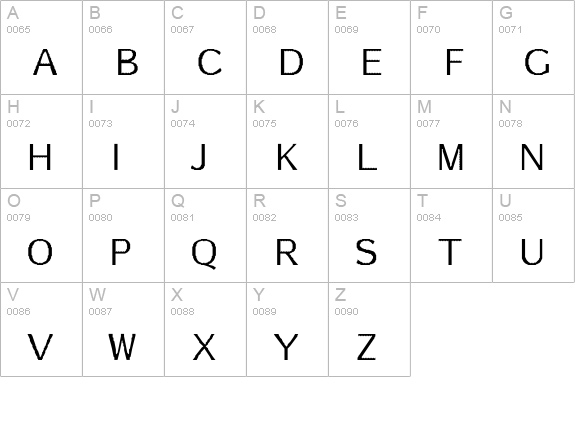
Essay-Normal Font Details
Essay-Normal is the standard, neutral variant in the Essay typeface family \xE2\x80\x94 well suited to general body text, paragraphs, and standard typographic work.
Essay-Normal font is a classic and timeless typeface that exudes elegance and sophistication. With its clean lines and balanced proportions, this font is perfect for all types of design projects, from formal documents to creative branding materials. The versatility of Essay-Normal font makes it a go-to choice for designers looking for a refined and professional look. What sets Essay-Normal font apart is not only its aesthetic appeal but also its accessibility. This font is freely available to download at FontsMarket.com, making it a convenient choice for designers and creatives looking to elevate their projects without breaking the bank. Whether you're working on a print publication, digital design, or any other project that requires a touch of class, Essay-Normal font is sure to impress with its timeless appeal and sophisticated charm. Download Essay-Normal font today from FontsMarket.com and bring a touch of elegance to your next design project.